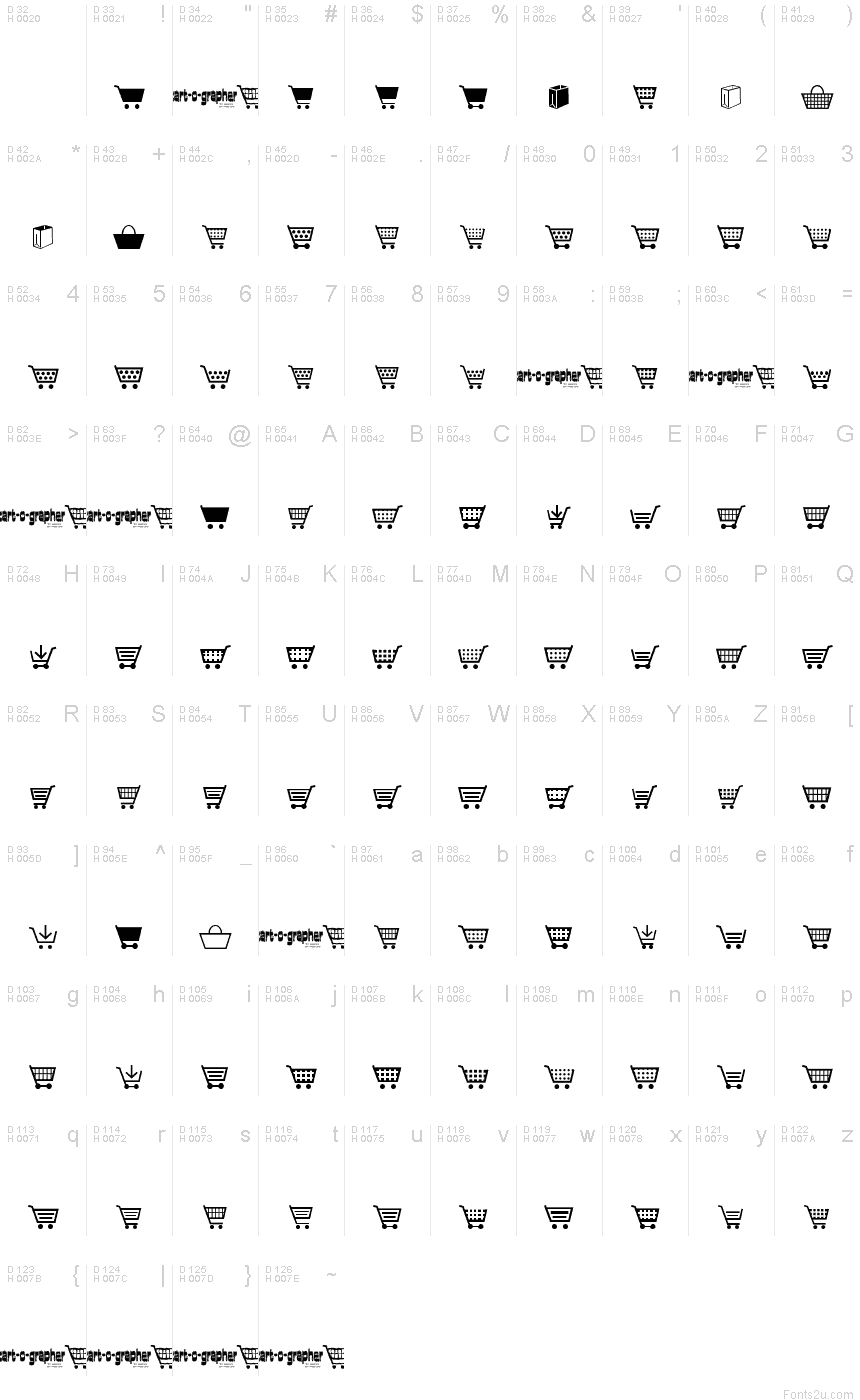
cart o grapher
cart o grapher font by Big Toe Designs is a free dingbats typeface that gives you a whole fleet of bold, black shopping carts. Each icon has its own twist-dotted baskets, grid patterns, download arrows, and clean wireframes-so you can signal different actions without a single word. The lines are chunky and confident, reading crisply even at smaller sizes while still feeling friendly and handmade.
Using cart o grapher font, you can quickly brand add‑to‑cart buttons, loyalty badges, in‑store signage, email banners, app onboarding screens, and coupon graphics with a consistent cart motif. This free font works beautifully in monochrome, but it also takes flat color overlays well for category coding. For a clear, modern look, pair these icons with a simple geometric sans‑serif set in light or regular weights.